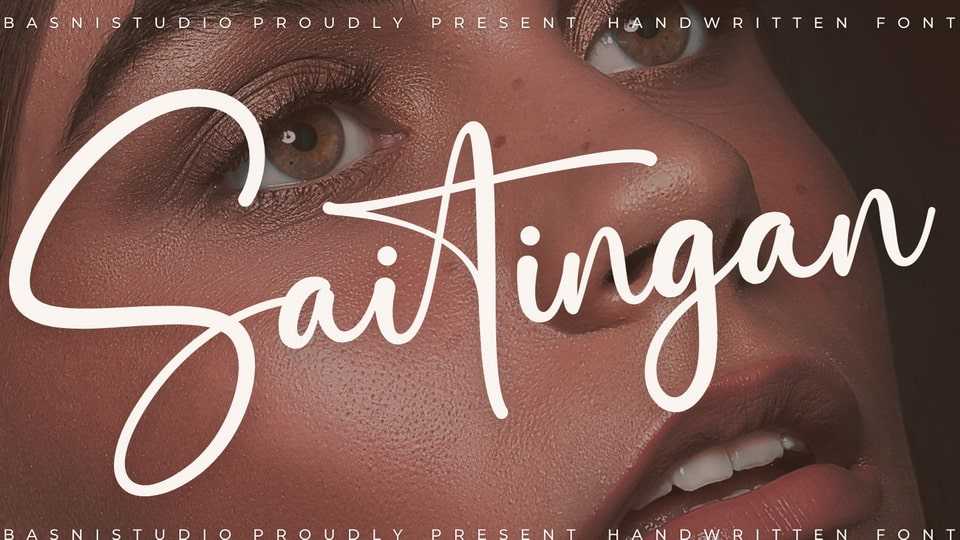
Download Saitingan font, a handwritten typeface that adds an elegant, versatile touch to everything from branding and social media to invitations and packaging.